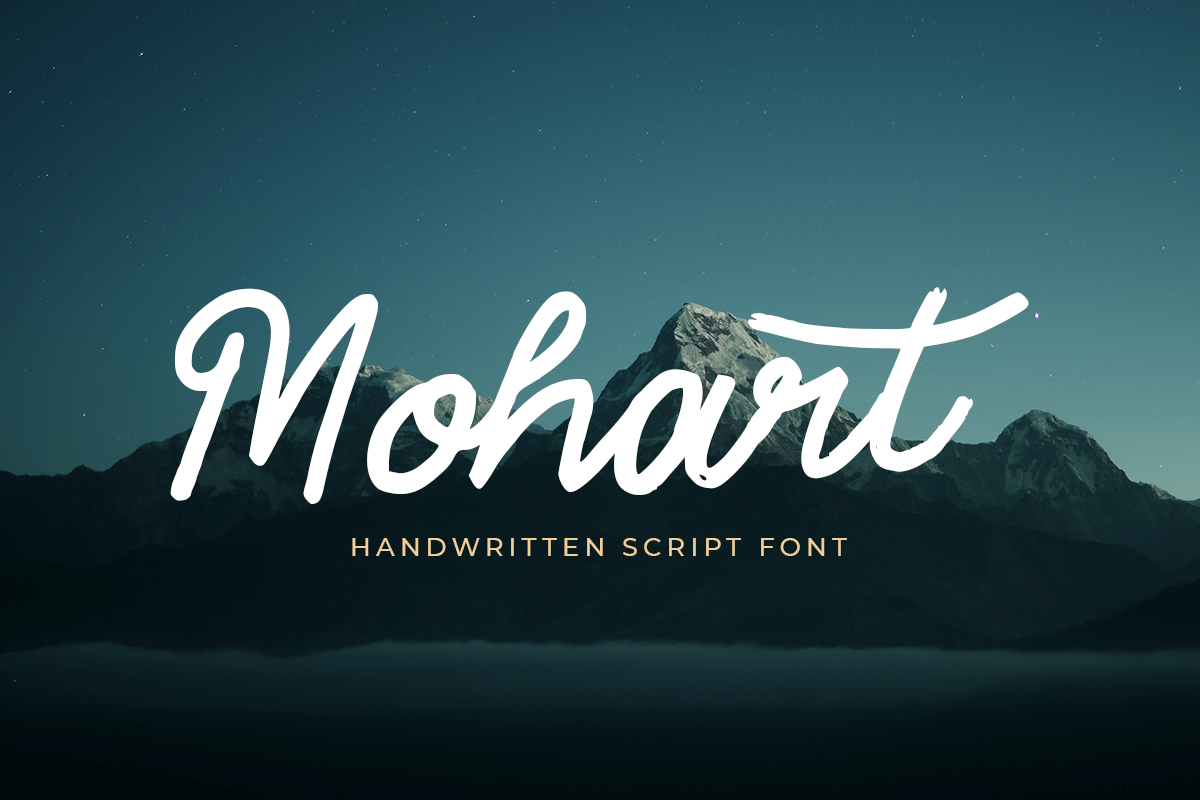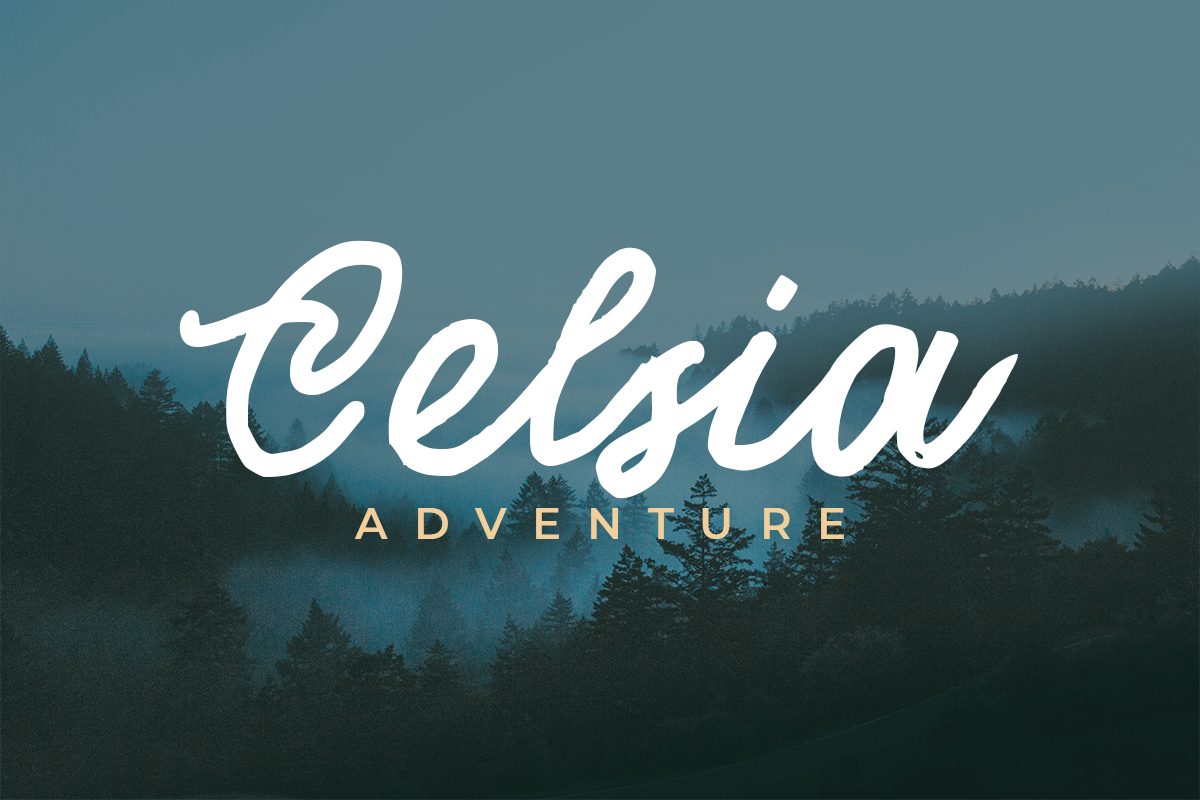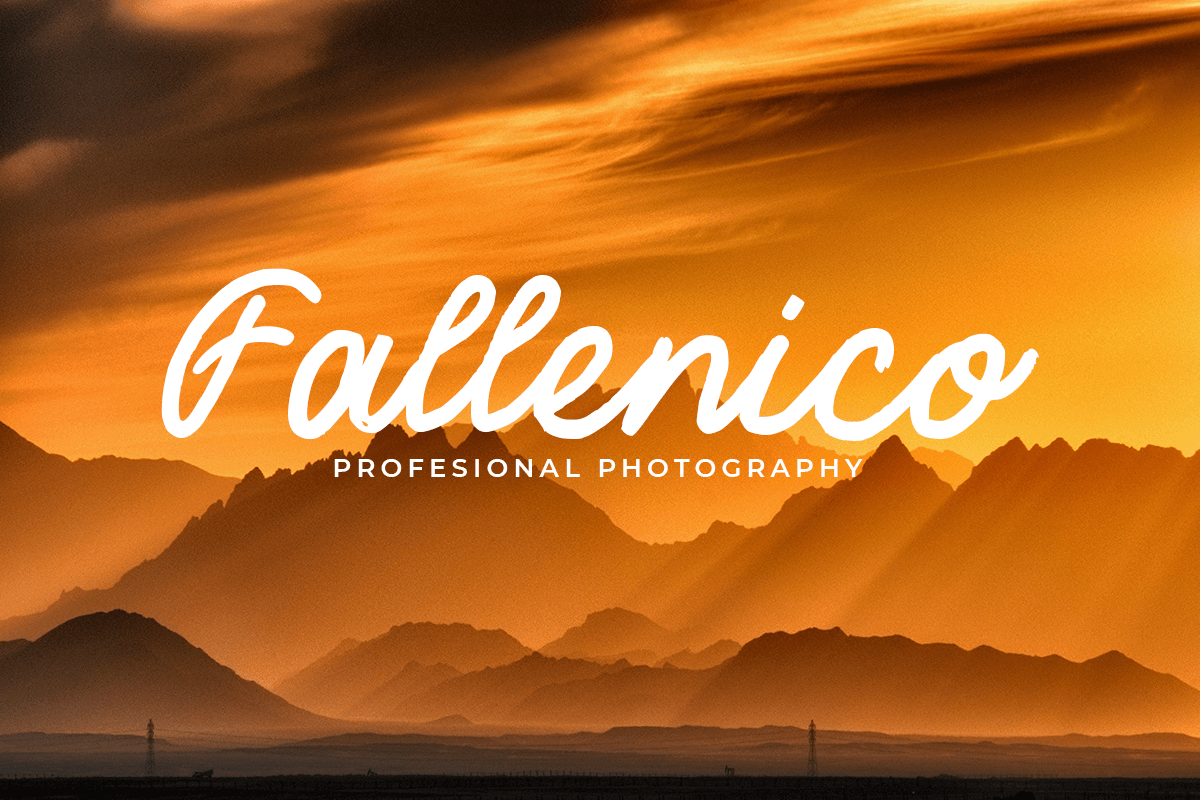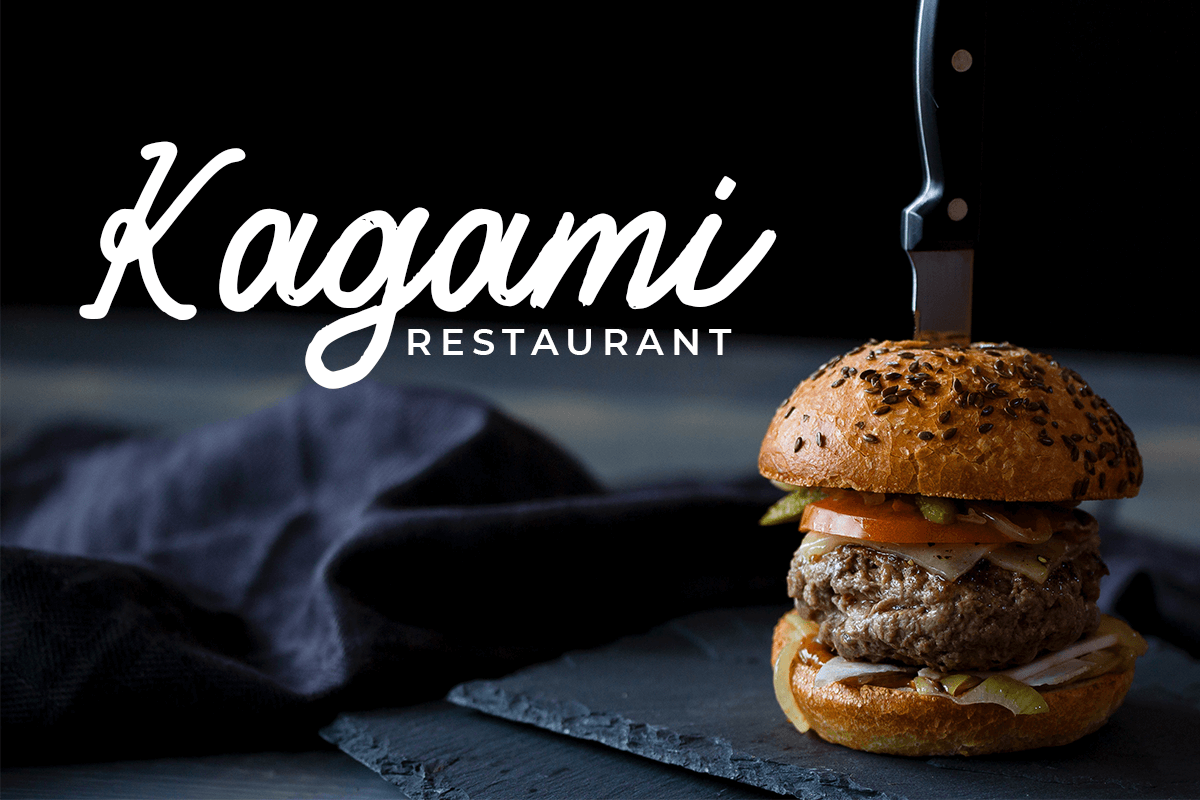
Mohart
-Handwritten Script Font
Mohart A Handwritten Script font with nice and modern style and so beautiful. This font specially crafted for your project design or professional logo, modern for any designs such as product, merchandise, and so many more with easy to use but unique results are so professional.